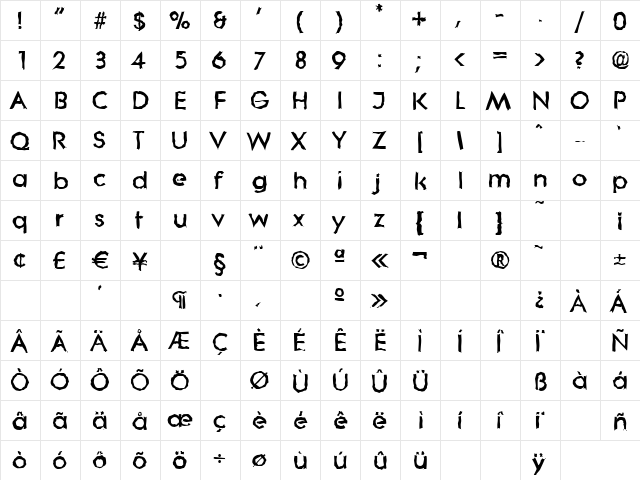
BradBeckerRandom-Heavy Regular
Design Context for BradBeckerRandom-Heavy Typeface
BradBeckerRandom-Heavy is a composed and adaptable typeface that performs quietly and consistently across a wide range of design contexts.